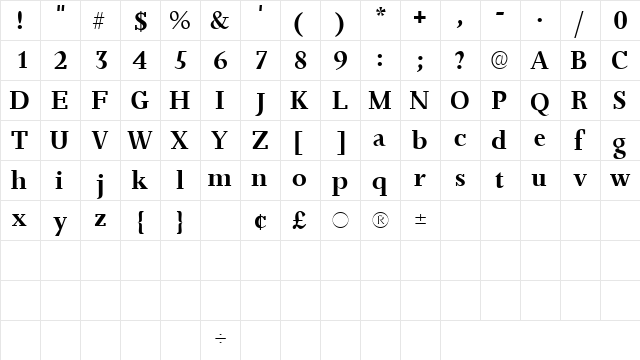
JuxtaSSK Regular
Design Context for JuxtaSSK Typeface
JuxtaSSK offers clean, dependable letterforms without strong stylistic allegiance, making it a practical choice for designers who need flexibility.
Pro Tip: Use JuxtaSSK in both headline and body roles to test its range before committing to a single application.